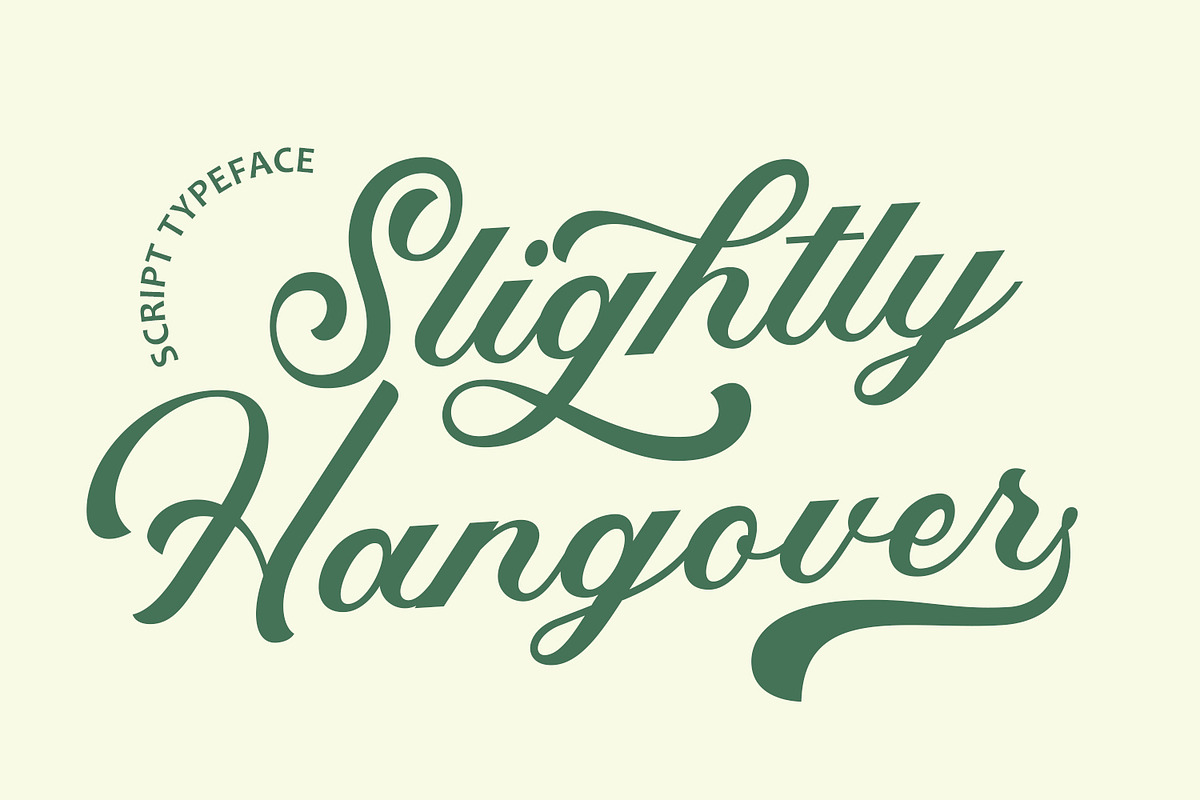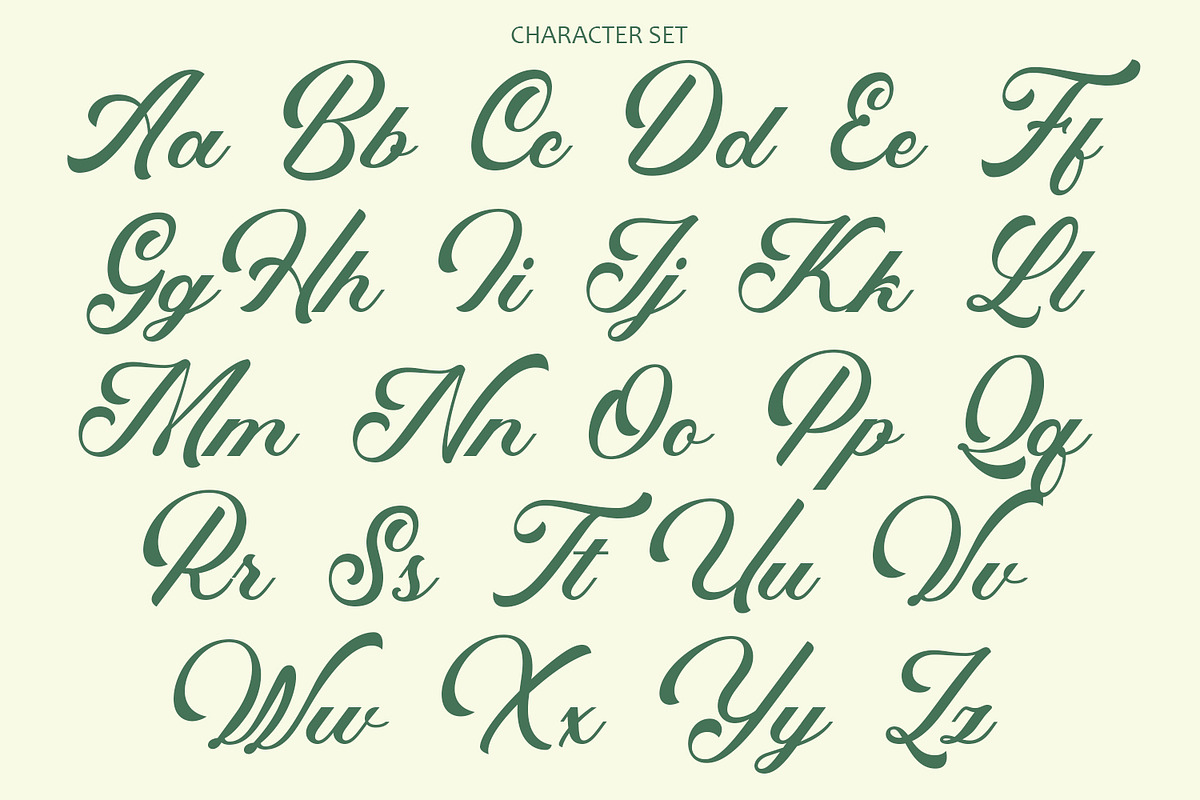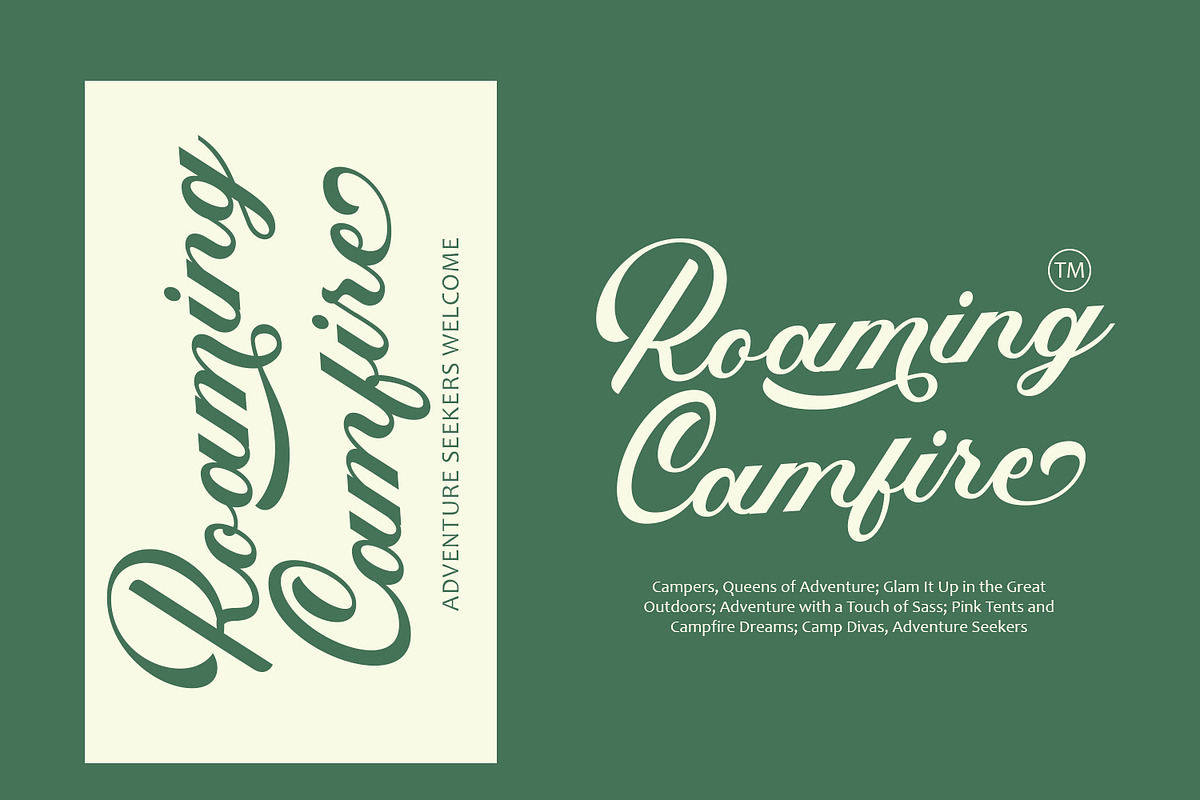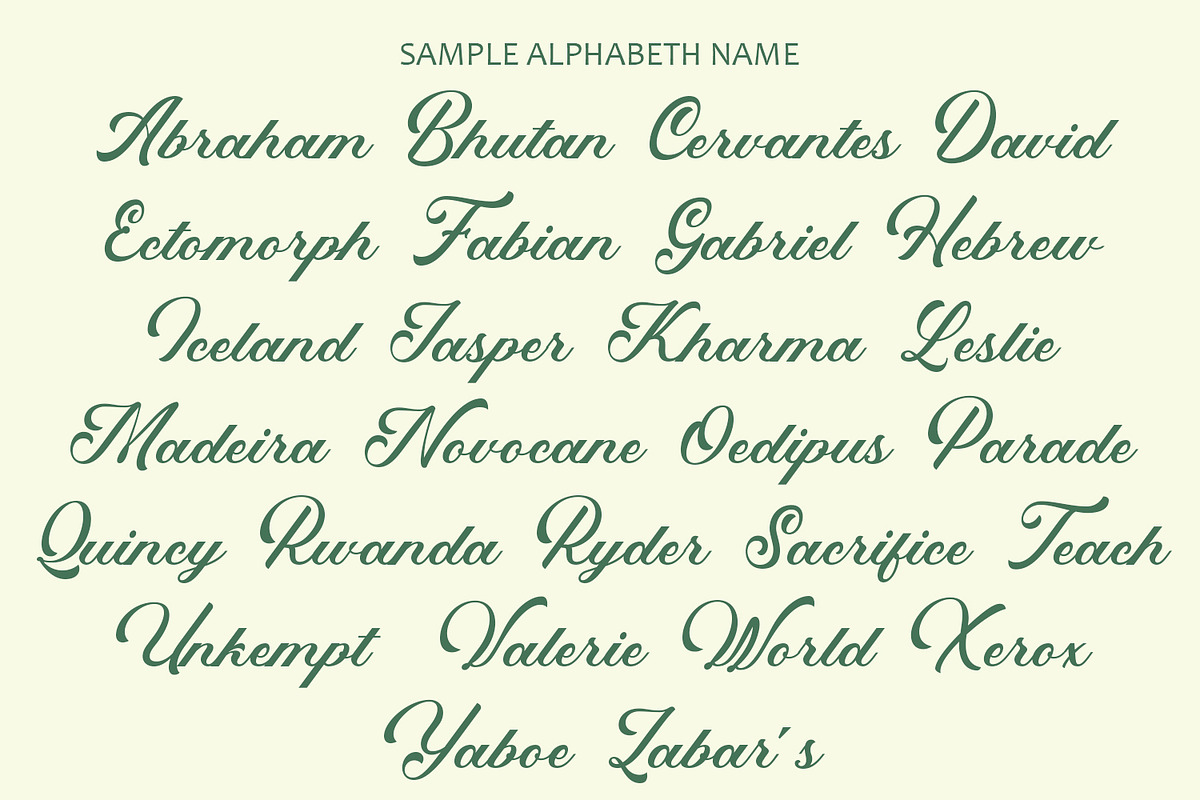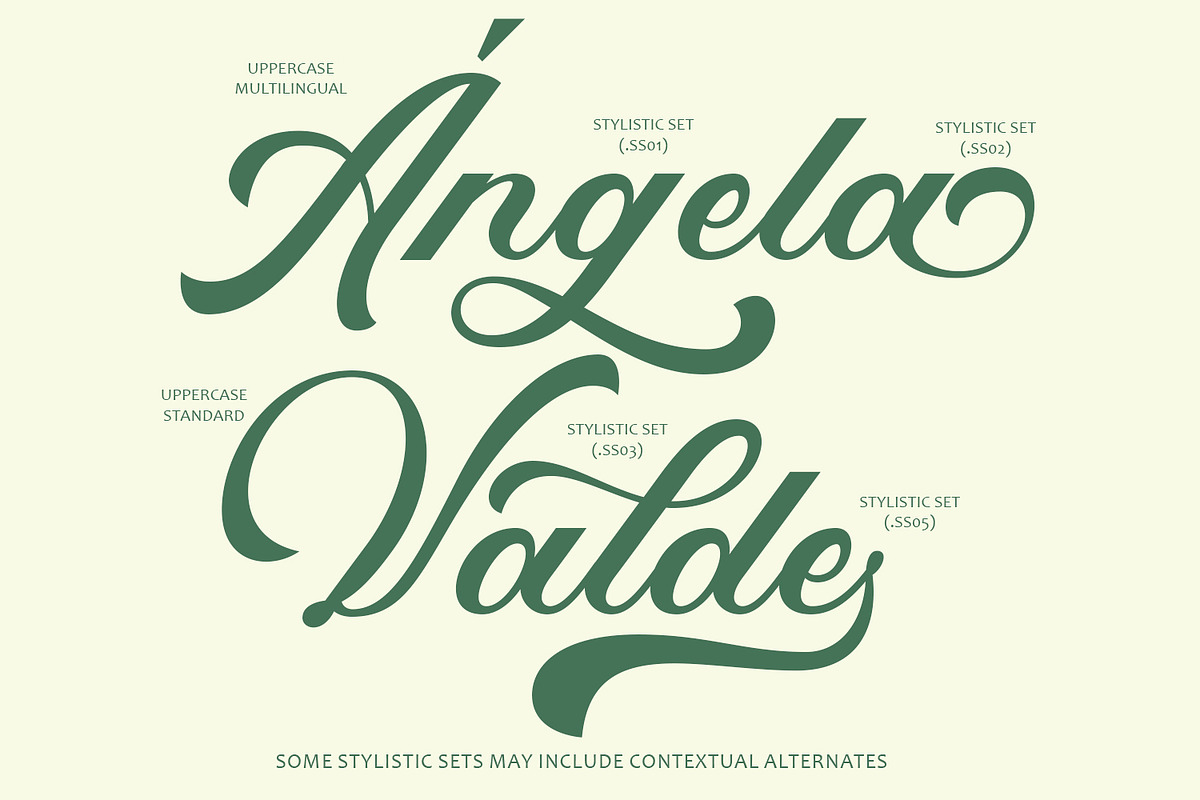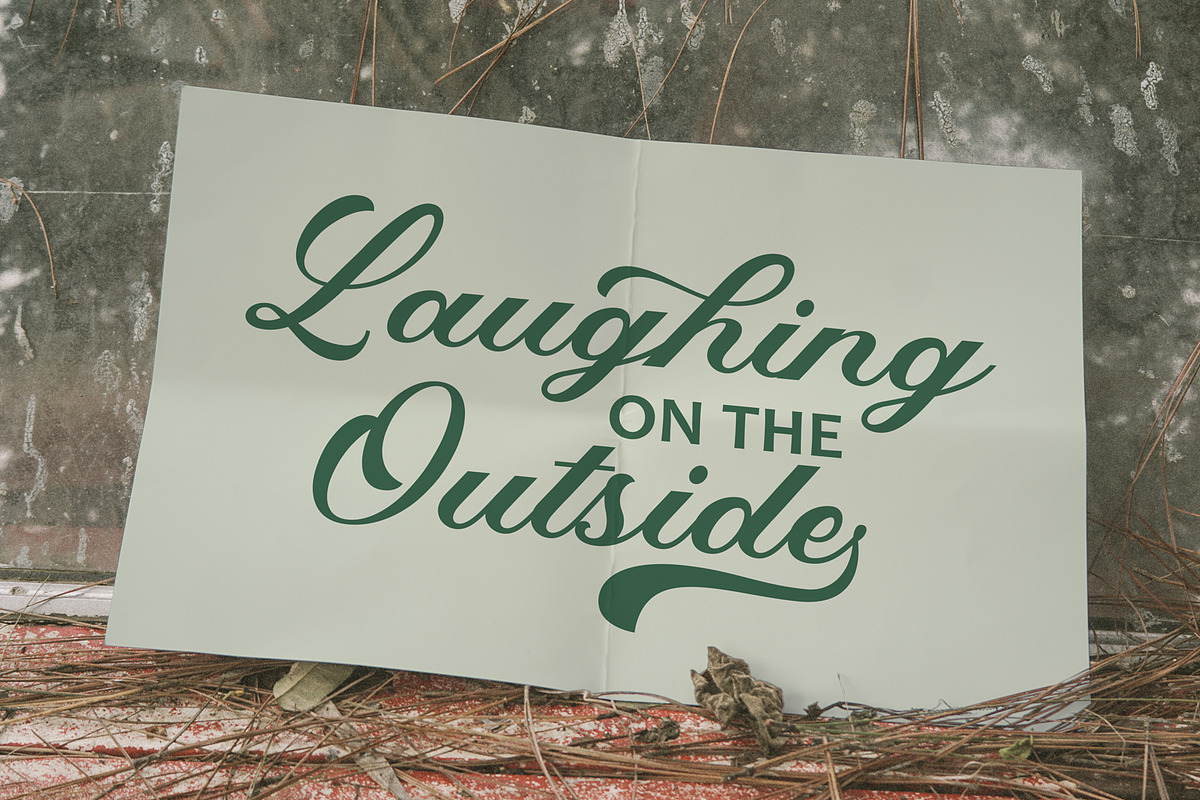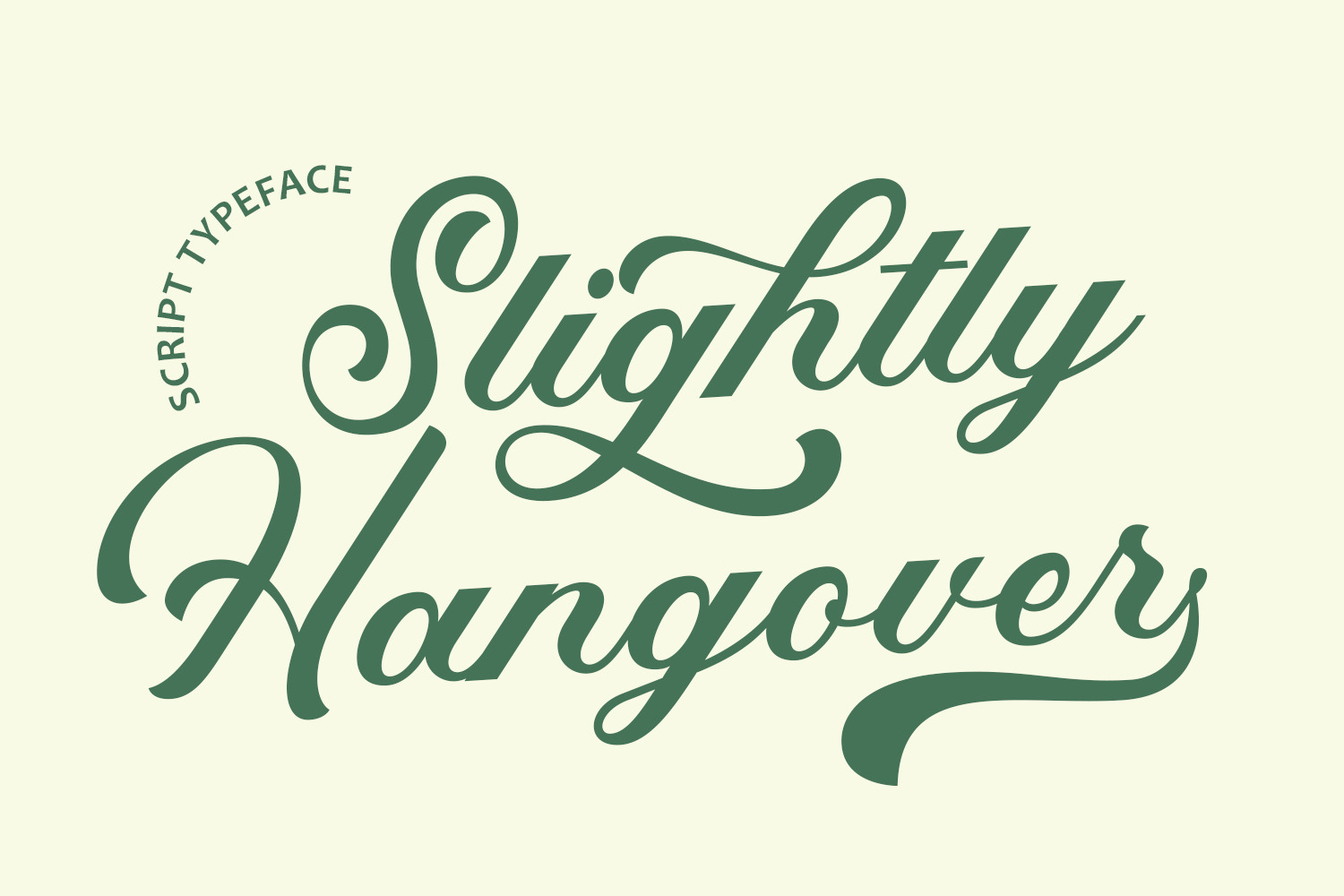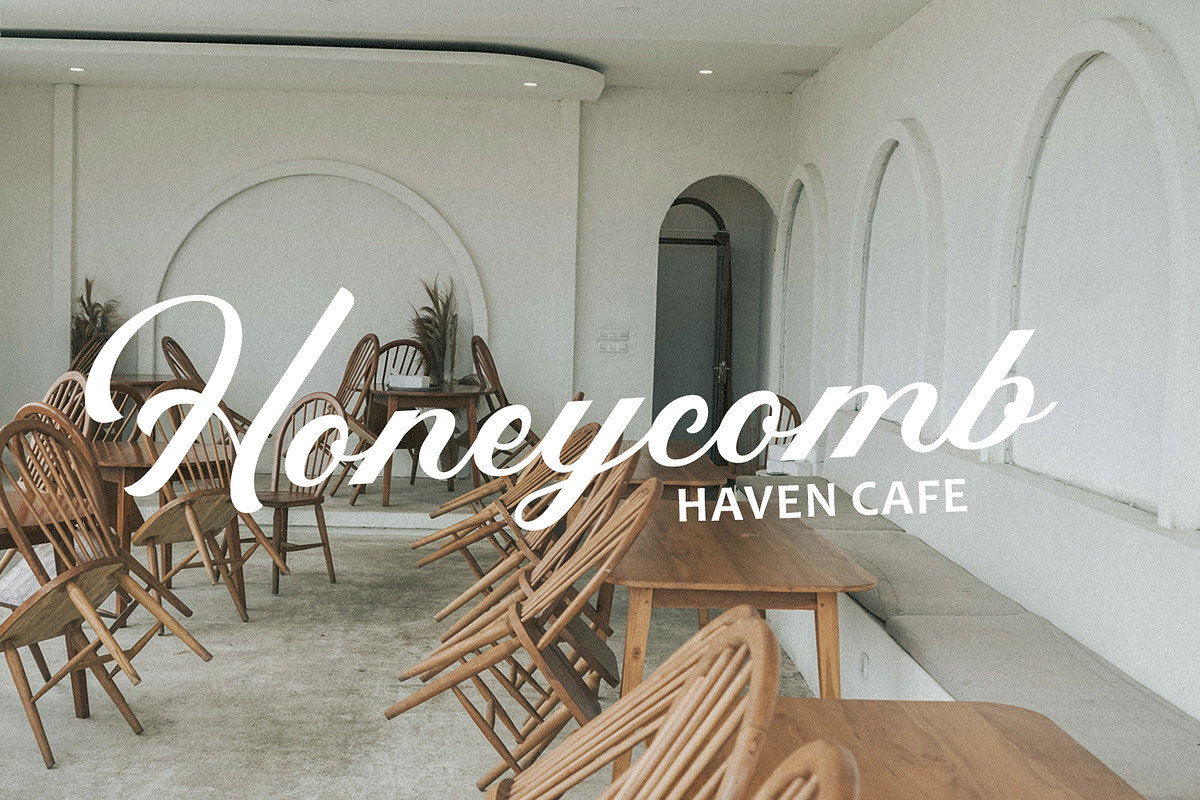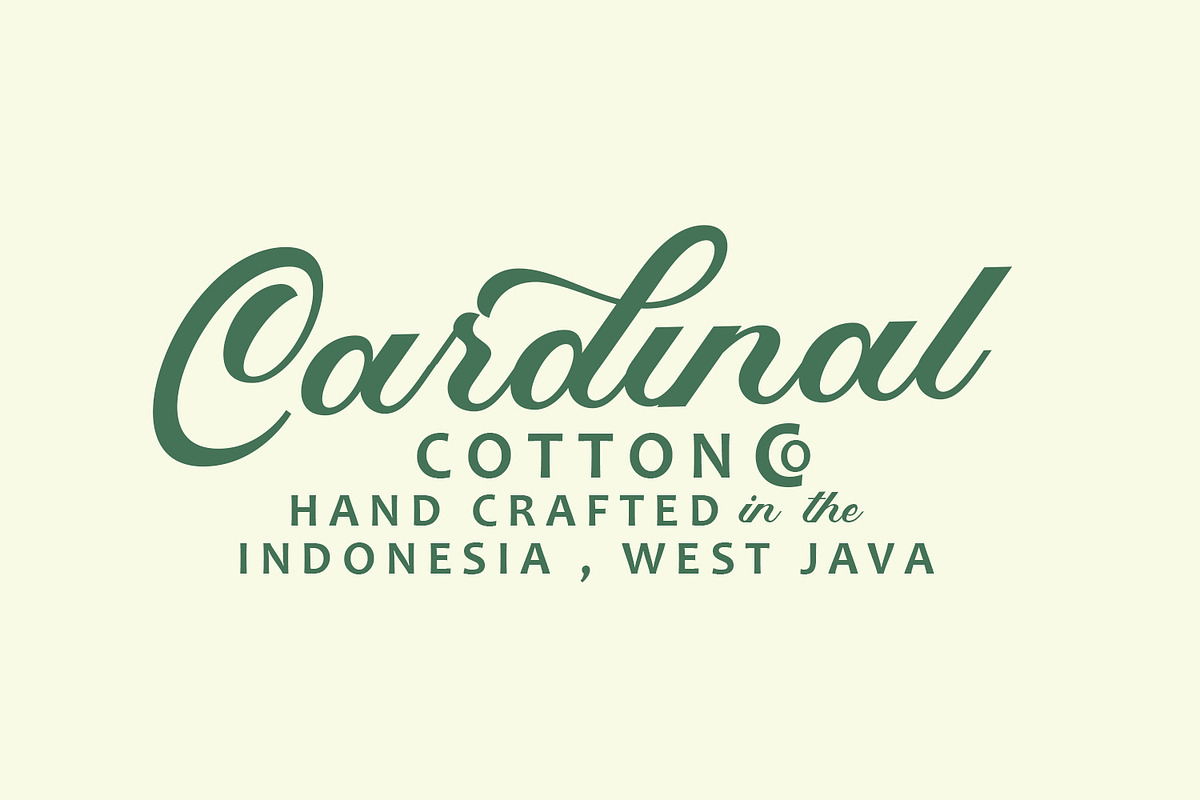
Slightly Hangover Script Typeface
Slightly Hangover script typeface is a charming and informal font that captures the essence of handwritten calligraphy with a relaxed, slightly imperfect touch. Here's an explanation of its key features:
Handwritten Charm: "Slightly Hangover" emulates the organic flow of handwritten script, featuring fluid strokes and natural variations in line thickness. Each character possesses a sense of spontaneity and personality, giving the typeface a warm and inviting feel.
Casual Elegance: Despite its informal appearance, "Slightly Hangover" maintains an air of elegance and sophistication. The graceful curves and gentle slant of the letterforms create a pleasing rhythm, making it suitable for a wide range of design applications.
Versatility: This typeface is highly versatile and adaptable to various design contexts. It can be used for anything from wedding invitations and greeting cards to branding materials, packaging, and more, adding a touch of handmade charm to any project.
Expressive Typography: "Slightly Hangover" allows designers to create expressive typographic compositions that convey a sense of warmth and authenticity. The relaxed nature of the font makes it particularly well-suited for conveying casual or intimate messages.
Readable: While "Slightly Hangover" boasts a handwritten style, readability remains a priority. Each character is carefully crafted to ensure clarity and legibility, ensuring that text remains easy to read even at smaller sizes.
Unique Personality: The name "Slightly Hangover" suggests a playful and laid-back vibe, reflecting the typeface's unique personality. It adds a touch of whimsy and character to any design, making it memorable and engaging to viewers.
Overall, the "Slightly Hangover" script typeface offers a perfect blend of handwritten charm, casual elegance, versatility, readability, and unique personality. Its relaxed yet refined appearance makes it a standout choice for designers seeking to add a touch of warmth and character to their projects.